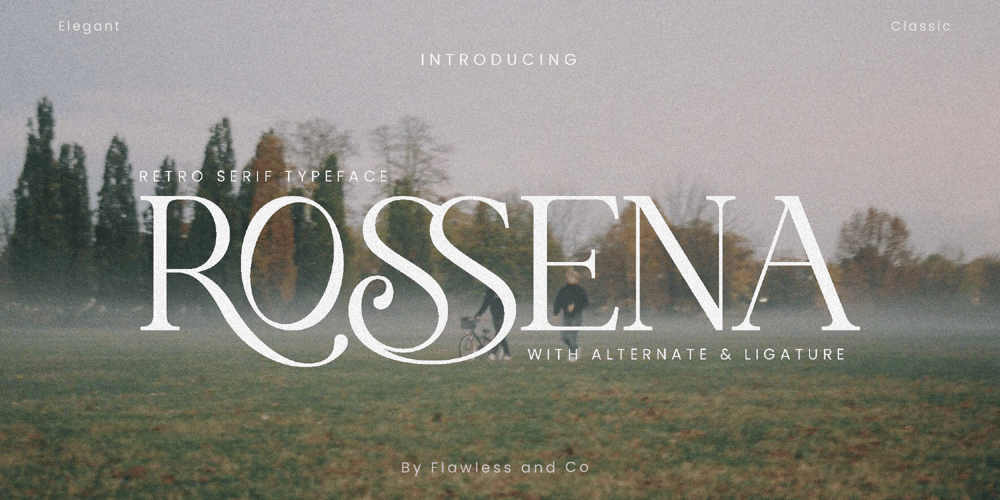
Rossena Font Family was designed by Achmad Yani and published by Flawlessandco. Rossena contains 1 styles and family package options. Rossena is a modern retro serif font that features unique alternate and ligature characters, so it’s fitted for some retro project.An Original typeface that suitable for any graphic designs such as branding materials, t-shirt, print, business cards, logo, poster, t-shirt, photography, quotes .etcThis font support for some multilingual. Modern Sweet Retro that contains uppercase A-Z and lowercase a-z, alternate character, numbers 0-9, and some punctuation.If you need help, just write me! Thanks so much for checking out my shop!